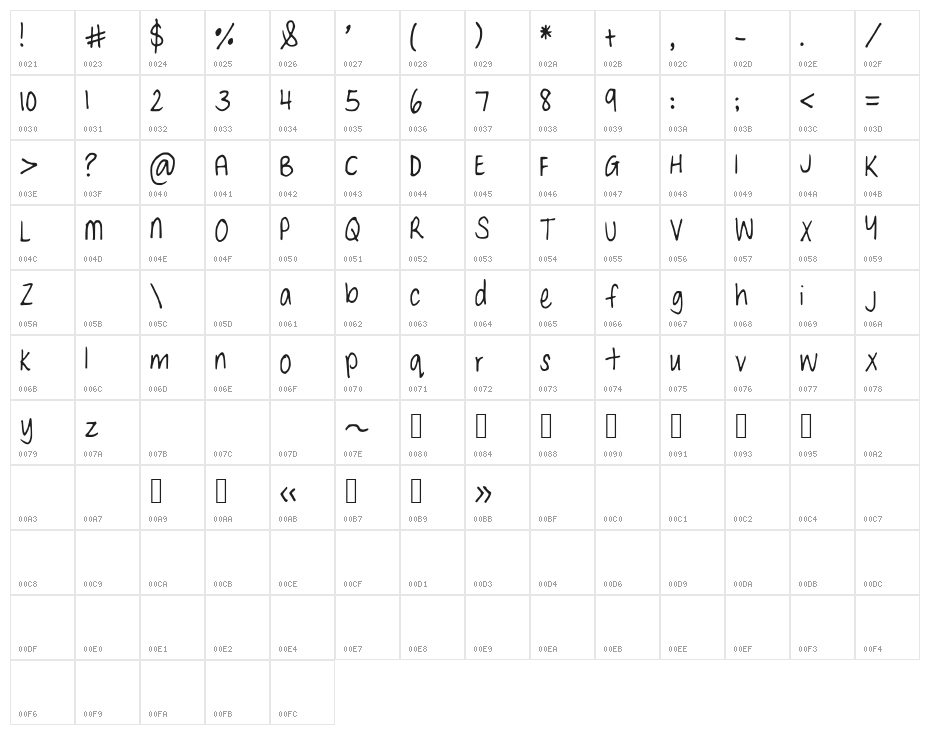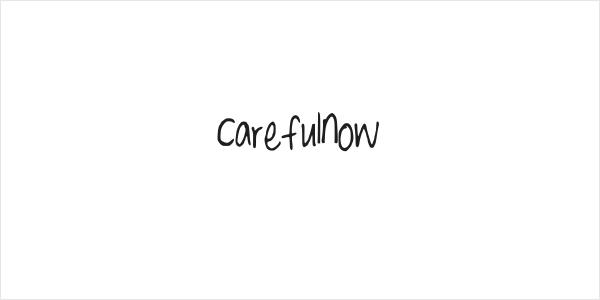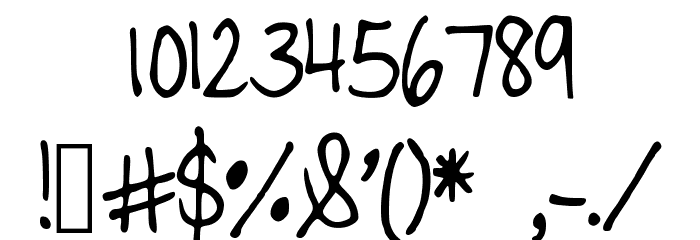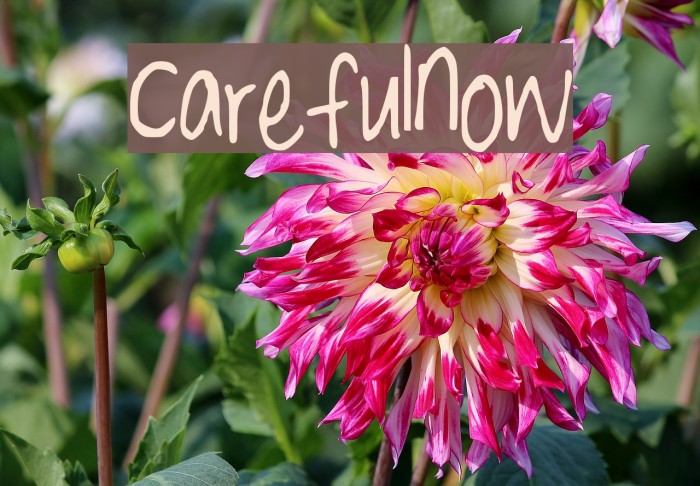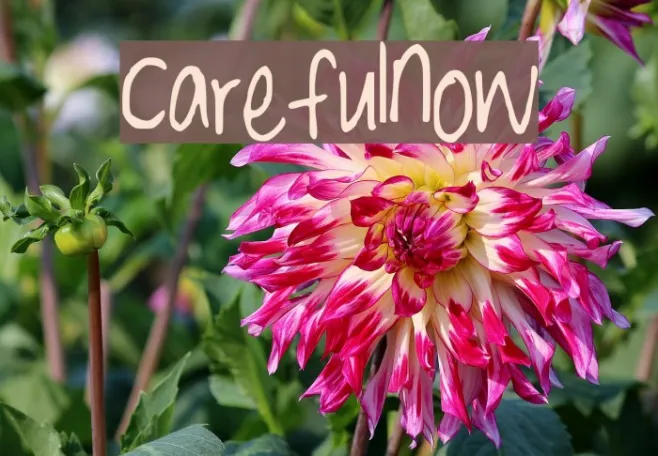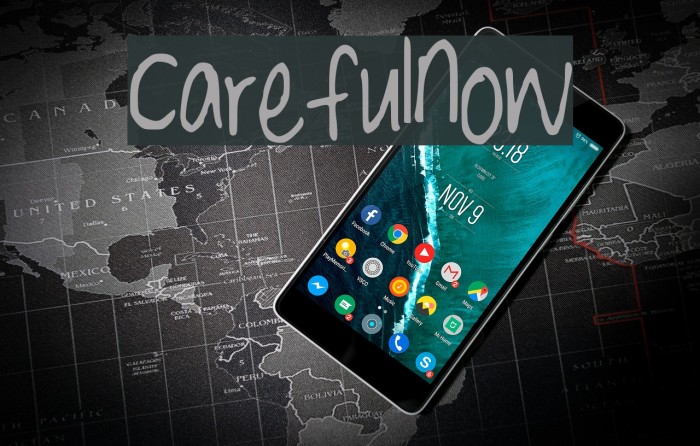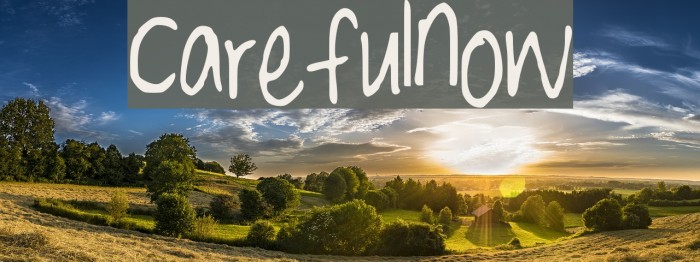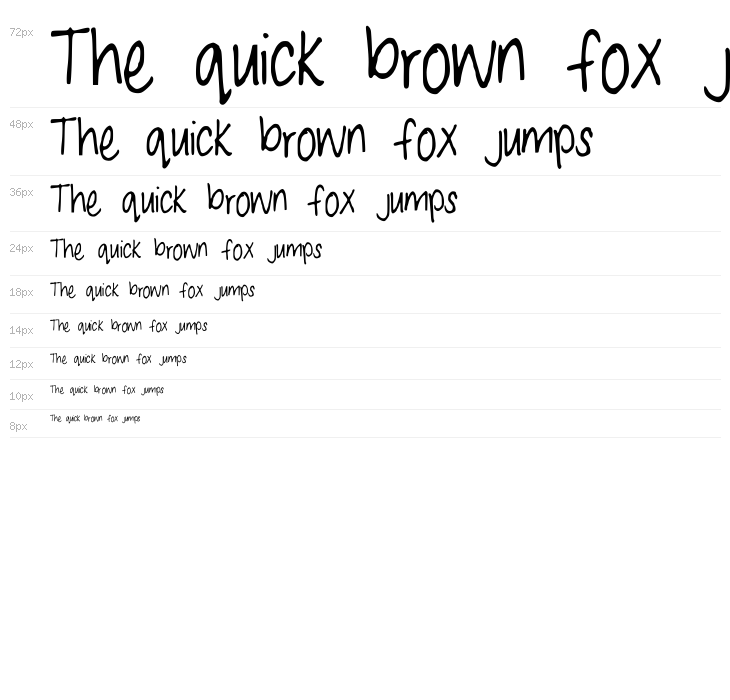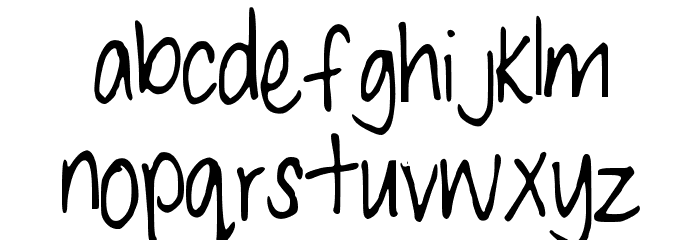
CarefulNow Font
CarefulNow Description
This font exudes a playful and casual handwritten style, characterized by its uneven strokes and slightly irregular letterforms. The uppercase and lowercase letters maintain a consistent flow, giving it a friendly and approachable appearance. The numbers and special characters are crafted with the same informal touch, making them blend seamlessly with the alphabet. The overall design is reminiscent of a personal note or a quick sketch, ideal for projects that require a human touch. Its legibility is maintained despite the informal style, making it suitable for various creative applications.
| Proposed Projects | Ideal for greeting cards, personal notes, children's books, and informal branding. |